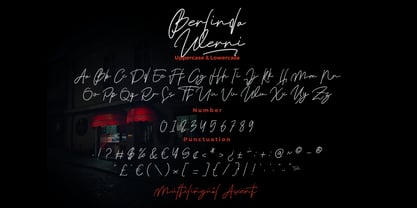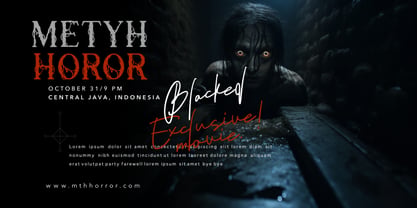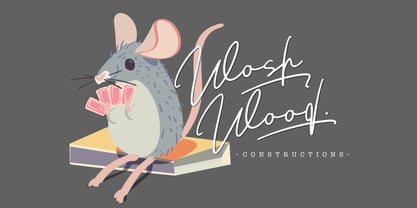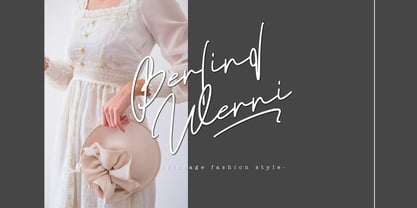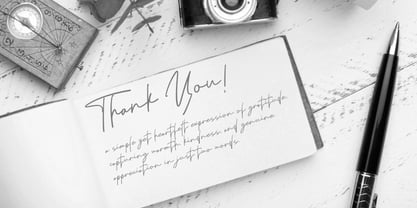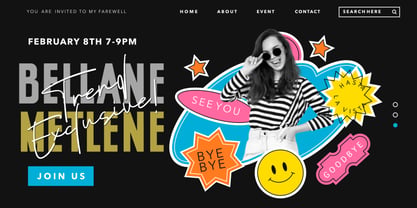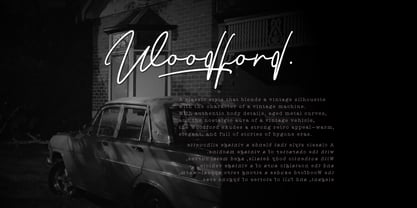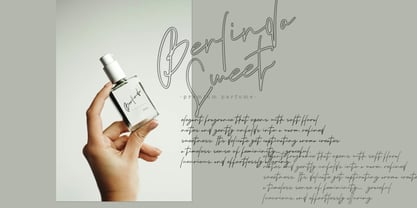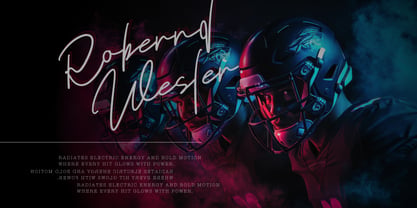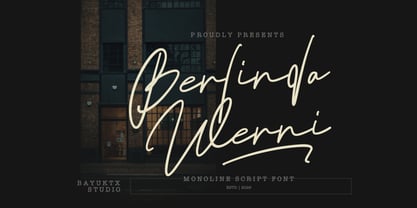
Berlinda Werni
The Berlinda Werni Font Family was designed by Bayu Aji Fais Mursid and published by Bayuktx. Berlinda Werni contains 1 styles. More about this family
Berlinda Werni a Elegant Monoline Script Font Berlinda Werni Monoline Script Font is a smooth and elegant handwritten typeface inspired by flowing pen strokes, modern calligraphy, and timeless signature lettering. Featuring clean monoline lines, graceful curves, and balanced proportions, this font delivers a refined, romantic, and professional handwritten look. Designed to express sophistication and natural handwriting charm, Berlinda Werni offers excellent readability while maintaining an expressive script character. Each letter connects beautifully, creating a seamless flow that feels personal, stylish, and luxurious. Perfect for both digital and print use, Berlinda Werni shines in branding, wedding designs, editorial layouts, and creative projects that require an elegant handwritten touch. Key Features : * Uppercase & Lowercase * Numerals & Punctuation * Multilingual Support * PUA Encoded & OpenType Features * Smooth Monoline Stroke * Elegant & Flowing Script Letterforms Suitable For : * Signature & Personal Branding * Wedding & Event Invitations * Fashion & Beauty Branding * Logos & Elegant Wordmarks * Social Media & Quotes * Editorial, Posters & Headlines * Packaging & Luxury Products With Berlinda Werni a Elegant Monoline Script Font, your designs gain timeless elegance, graceful flow, and handwritten authenticity — perfect for projects that demand beauty, softness, and professional script typography.